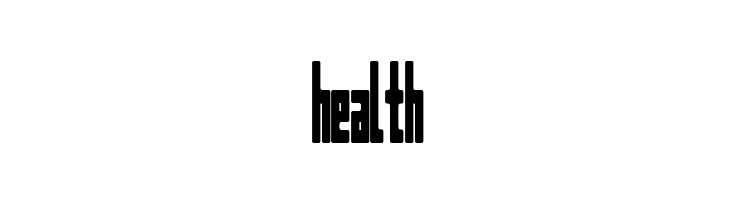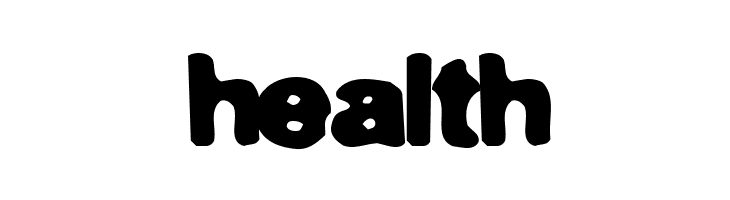
A bold, modern sans-serif font with strong, uniform strokes.
A bold, geometric font with a modern and uniform design.
A bold, geometric font with a futuristic and enclosed design.
A playful, star-themed decorative font with bold, rounded characters.
A dot matrix style font with a playful and modern aesthetic.
A playful, bold font with rounded, bubble-like characters.
A playful, dotted font with a modern, pixel-art-inspired design.
A playful, bold font with rounded edges and a modern, friendly style.
A bold, irregular, and playful font with a hand-drawn appearance.